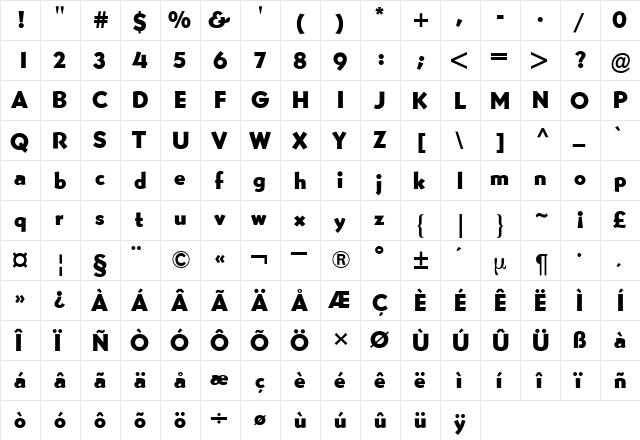
Bernhard Gothic BQ Regular
Design Context for Bernhard Gothic BQ Typeface
Bernhard Gothic BQ takes a clean, functional approach — its unadorned letterforms prioritise legibility and work reliably across screen and print environments.
Font Pairing: Works well alongside a characterful serif or display font that can carry the expressive load while Bernhard Gothic BQ handles the functional copy.
Pro Tip: Pair Bernhard Gothic BQ with a display or serif font for headlines — its neutral character makes it an excellent supporting player in complex typographic systems.